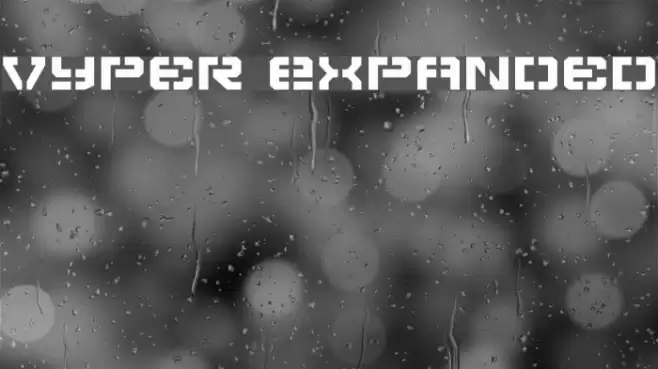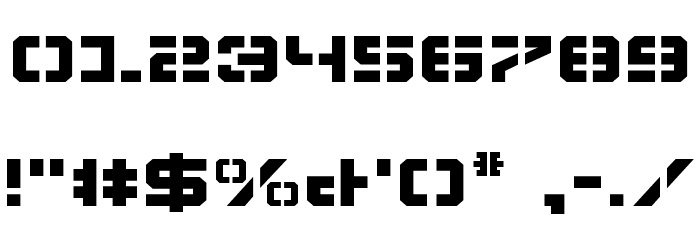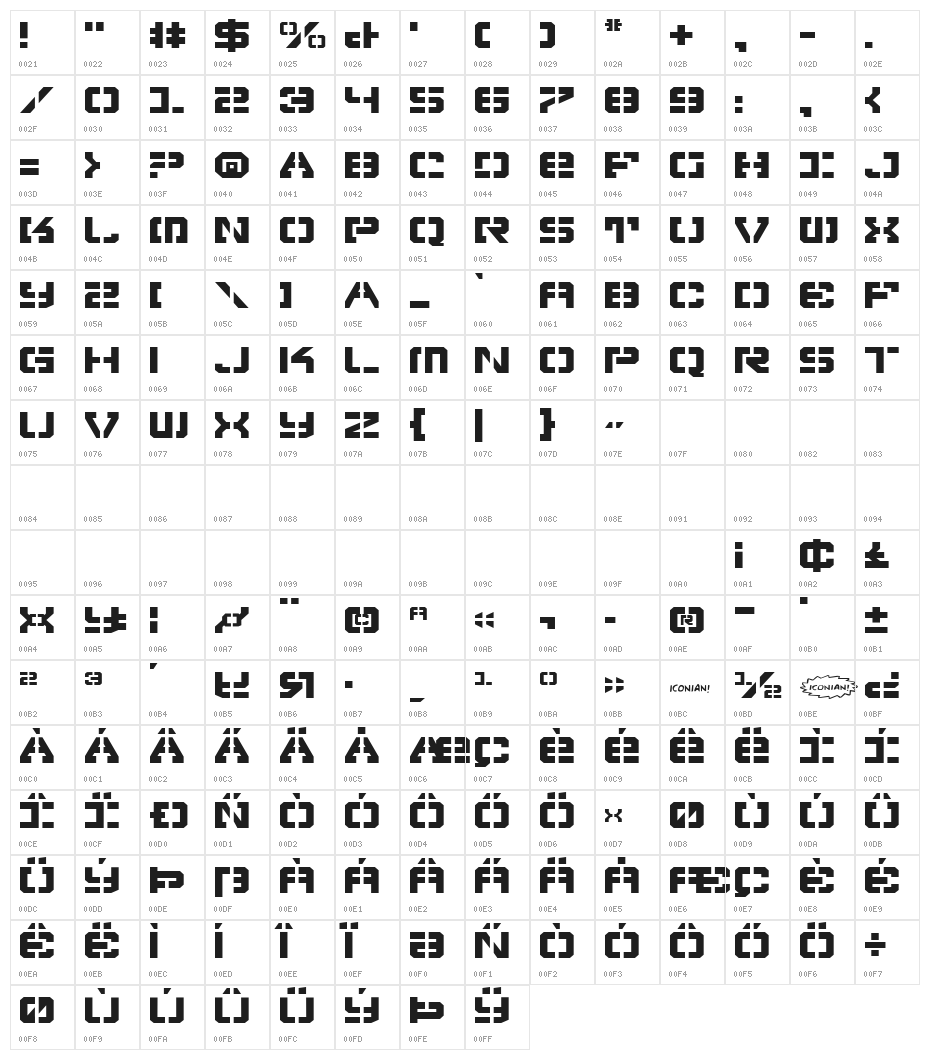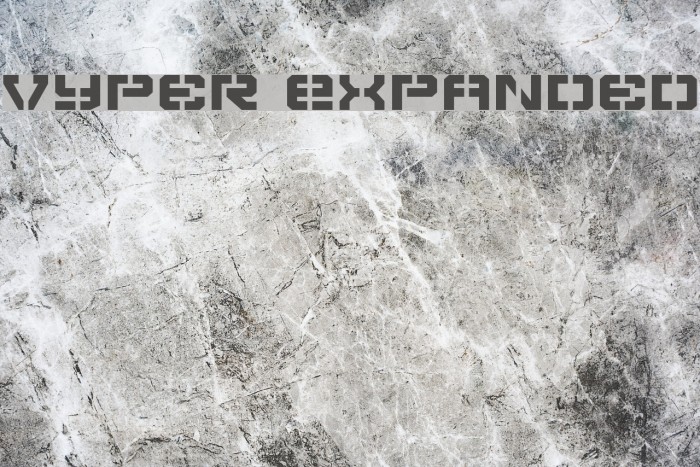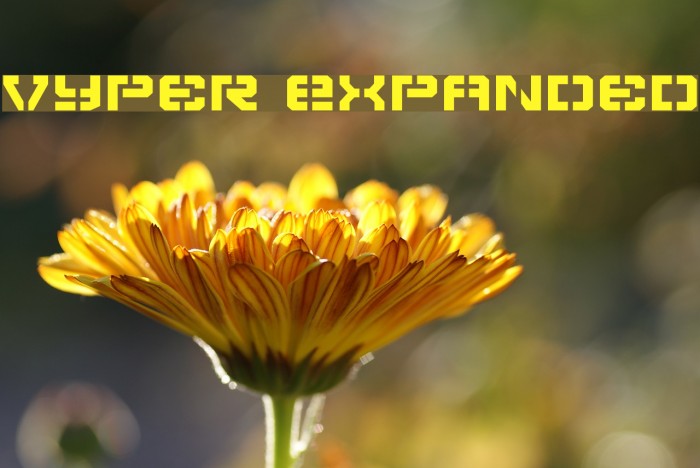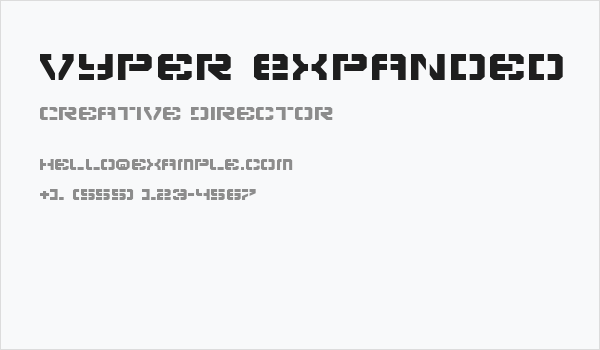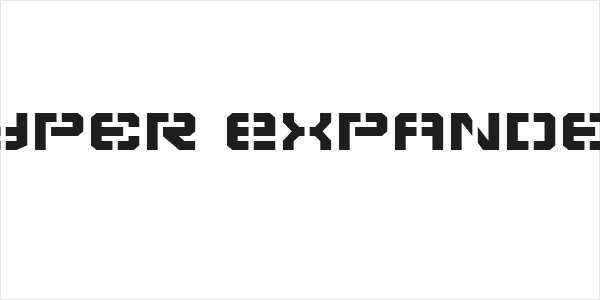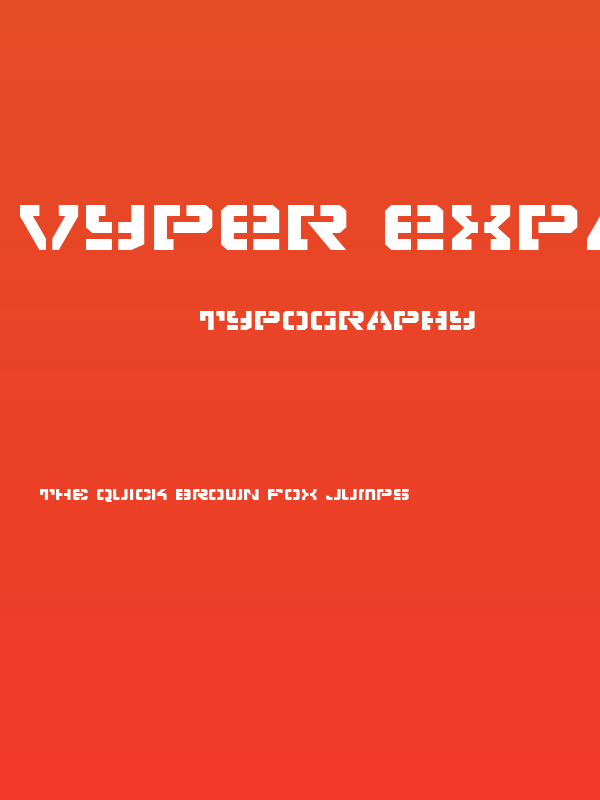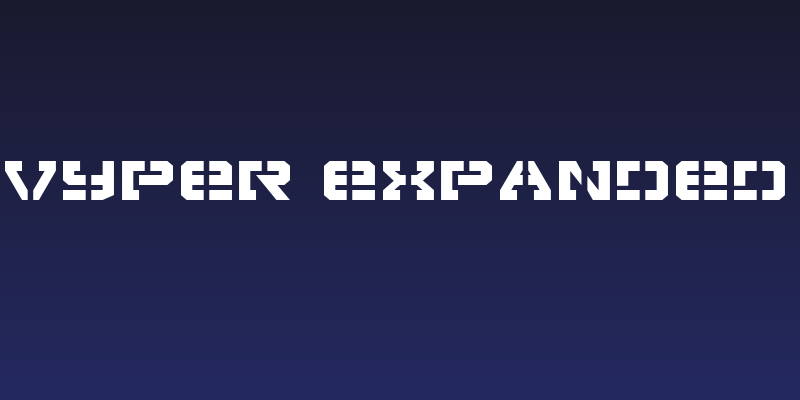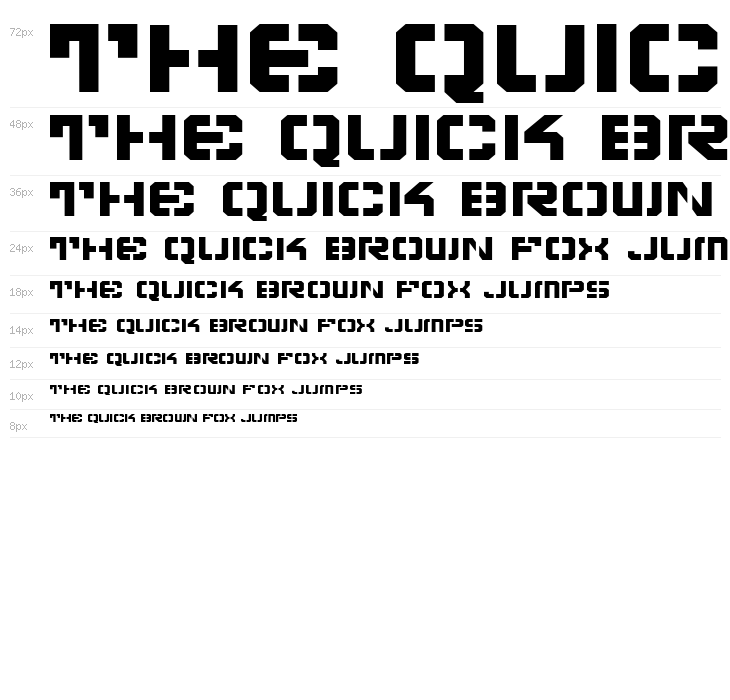
Vyper Expanded Font
Vyper Expanded Description
This font features a bold, geometric design with a distinctly futuristic and digital aesthetic. The characters are constructed with angular, block-like shapes that give a sense of strength and modernity. The uppercase and lowercase letters maintain a consistent style, with sharp edges and a uniform width that contributes to its expanded appearance. The numerals and special characters follow the same design principles, ensuring a cohesive look across all glyphs. This font is ideal for projects that require a strong visual impact and a contemporary feel.
A bold, geometric font with a futuristic and digital aesthetic from Sci-fi fonts.
- Proposed Projects: Ideal for technology branding, video game titles, sci-fi movie posters, and digital interfaces.